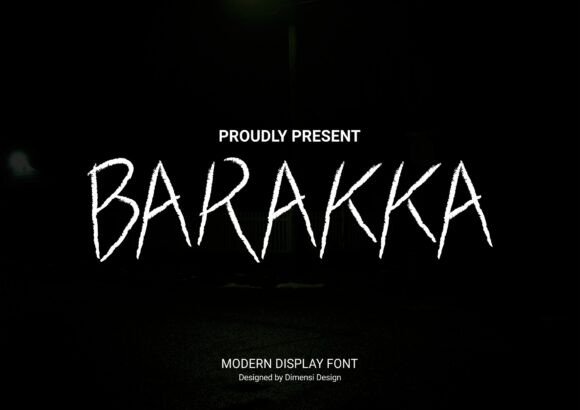
Unleashing the Power of Barakka Font: A Bold and Rugged Display Font
When it comes to creating impactful branding, posters, and headlines, the right font can make all the difference. That’s where Barakka Font comes in – a bold and rugged display font designed to exude strength and character. With its raw, grunge texture and distressed edges, Barakka Font is perfect for projects that demand a strong, fearless, and edgy look.
The Aesthetic of Barakka Font
Barakka Font boasts a unique, vintage aesthetic that’s reminiscent of industrial and rebellious styles. Its rough details and distressed edges give it a worn, rugged look that’s sure to grab attention. The font’s grunge texture adds a layer of depth and complexity, making it perfect for designs that require a bold and fearless look.
Key Features of Barakka Font
- Raw, grunge texture: Gives the font a worn, rugged look that’s perfect for industrial and rebellious designs.
- Distressed edges: Adds a layer of depth and complexity to the font, making it perfect for bold and fearless designs.
- Bold and rugged: Exudes strength and character, making it perfect for impactful branding, posters, and headlines.
- Vintage aesthetic: Reminiscent of industrial and rebellious styles, making it perfect for designs that require a strong and fearless look.
Uses of Barakka Font
Barakka Font is perfect for a variety of design projects, including:
- Impactful branding: Use Barakka Font to create bold and fearless brand identities that exude strength and character.
- Posters and headlines: Use Barakka Font to create eye-catching posters and headlines that grab attention and demand to be noticed.
- Industrial and rebellious designs: Use Barakka Font to create designs that require a strong, fearless, and edgy look.
Why Choose Barakka Font?
There are many fonts available that claim to be bold and rugged, but Barakka Font stands out from the rest. Here are just a few reasons why:
- Unique aesthetic: Barakka Font boasts a unique, vintage aesthetic that’s reminiscent of industrial and rebellious styles.
- High-quality design: Barakka Font is designed with high-quality craftsmanship in mind, ensuring that it looks great in any design.
- Versatility: Barakka Font is perfect for a variety of design projects, from impactful branding to posters and headlines.
Tips for Using Barakka Font
Here are a few tips for using Barakka Font in your designs:
- Use it boldly: Barakka Font is designed to be used boldly, so don’t be afraid to experiment with different sizes and colors.
- Pair it with contrasting fonts: Barakka Font pairs well with contrasting fonts, such as sleek and modern fonts.
- Experiment with different textures: Barakka Font’s grunge texture is a key part of its aesthetic, so experiment with different textures to find the right look for your design.
In conclusion, Barakka Font is a bold and rugged display font that’s perfect for projects that demand a strong, fearless, and edgy look. With its raw, grunge texture and distressed edges, Barakka Font is sure to grab attention and make a lasting impression. Whether you’re looking to create impactful branding, posters, or headlines, Barakka Font is the perfect choice.